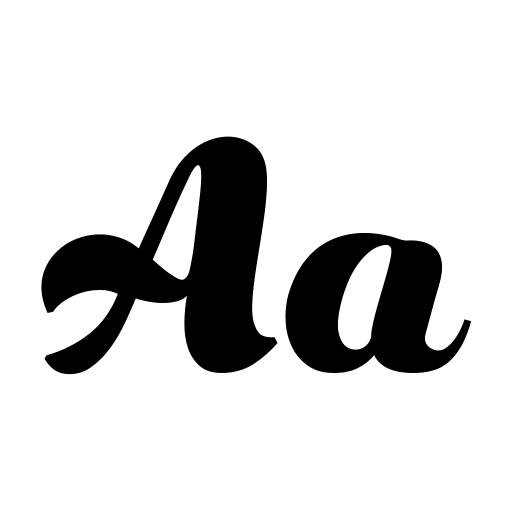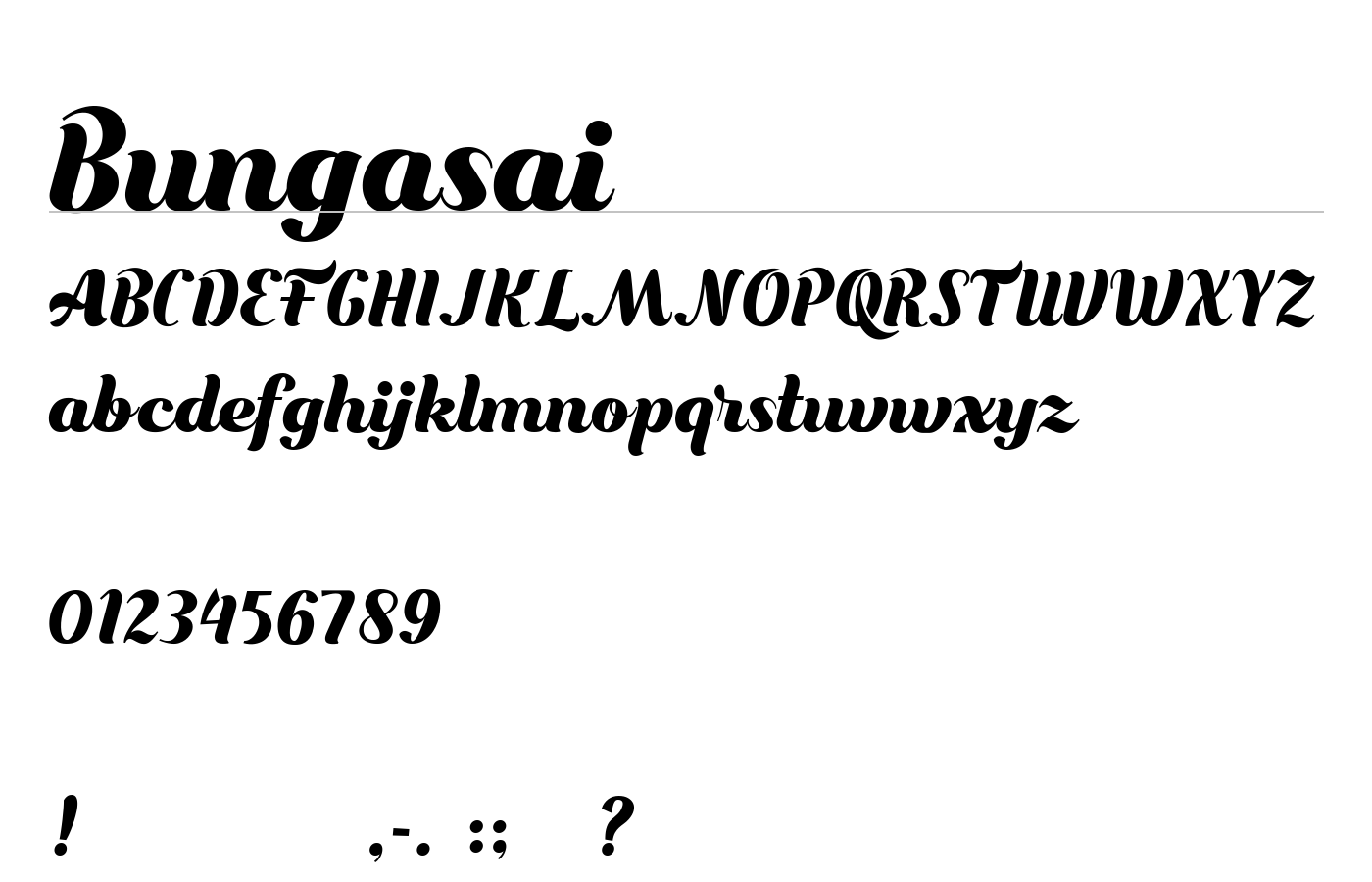
Bungasai is a bold, elegant script font that combines smooth, flowing curves with strong, thick strokes to create a confident and stylish look. Its slightly condensed letterforms and unique character shapes give it a vintage yet modern feel, making it ideal for branding, headlines, and packaging that seek a touch of sophistication and charm. This font works well for fashion, luxury, and creative projects where a distinctive, expressive typeface is desired.
Bungasai Font
About Bungasai Font